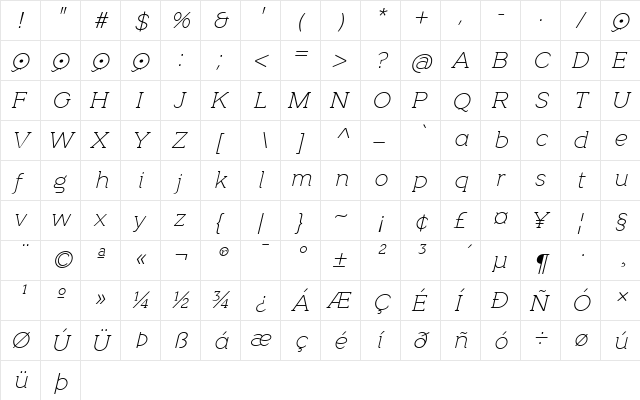
Quotus Thin Italic
| Foundry | deFharo |
| Designer | Fernando Haro |
Design Context for Quotus Typeface
Quotus is a composed and adaptable typeface that performs quietly and consistently across a wide range of design contexts. The dynamic lean of this cut emphasises speed and emphasis in any layout. Its slender proportions lend an understated elegance to any composition.
Pro Tip: Try Quotus for annotation and caption copy alongside an upright companion — the contrast in angle creates a dynamic but ordered typographic system.